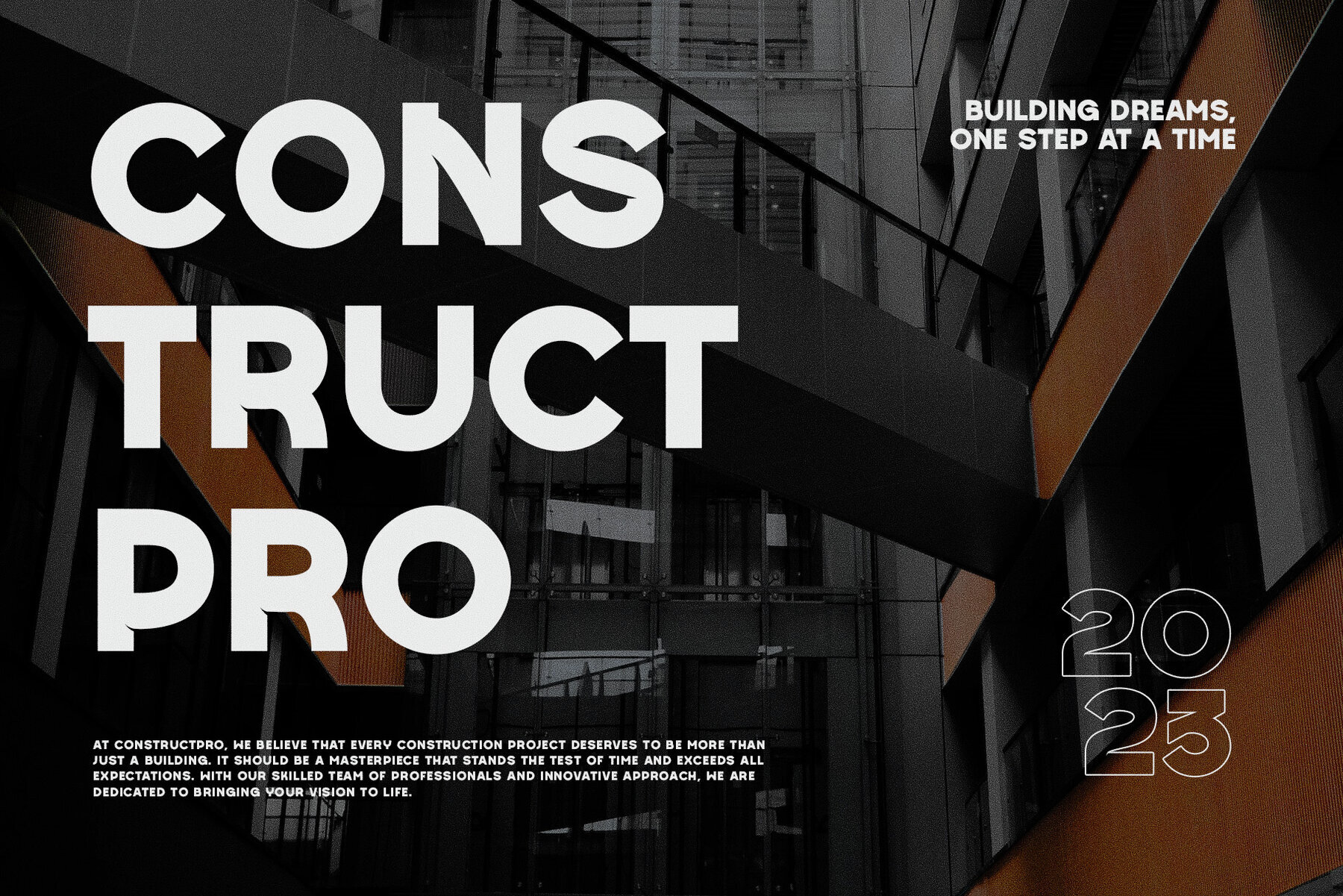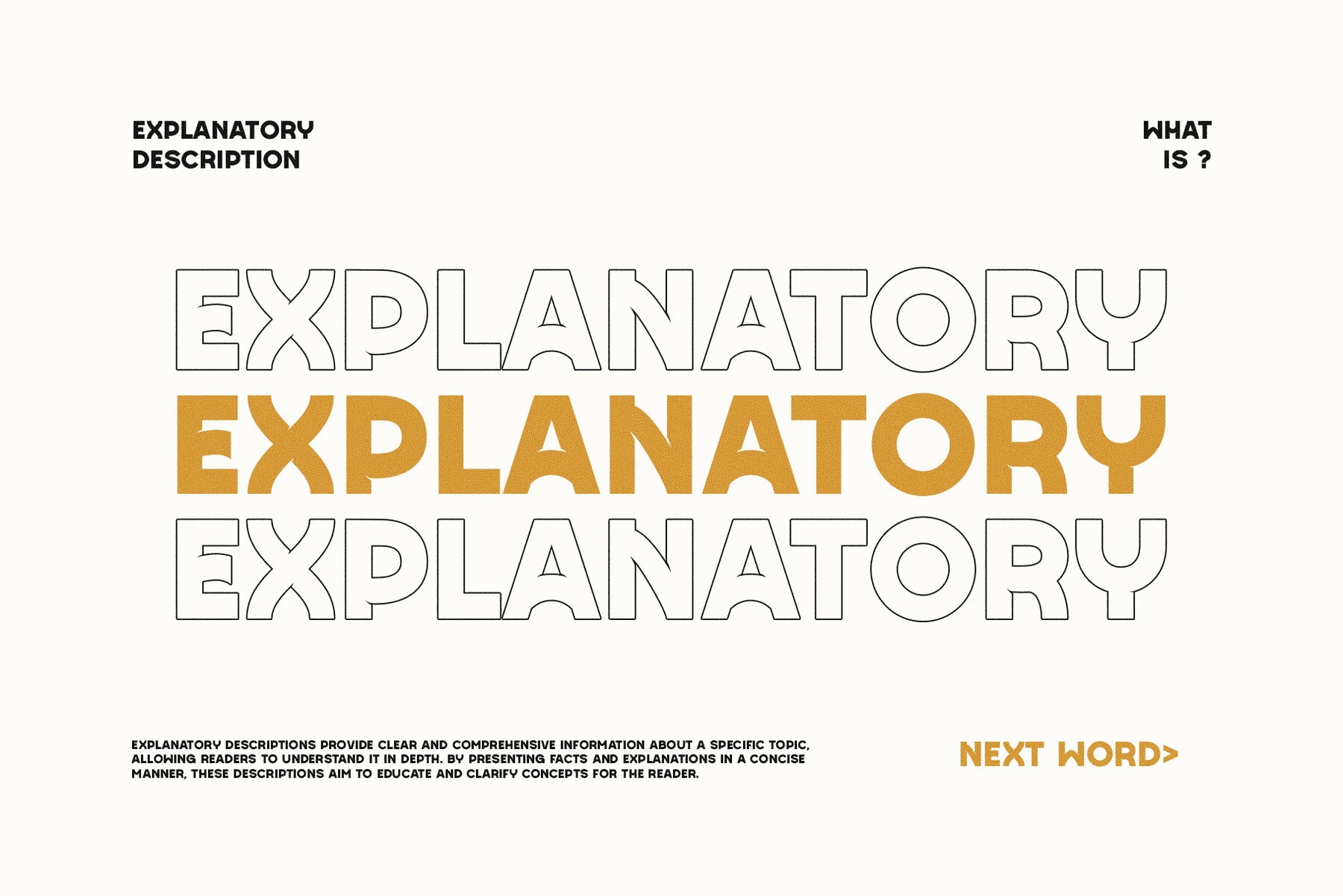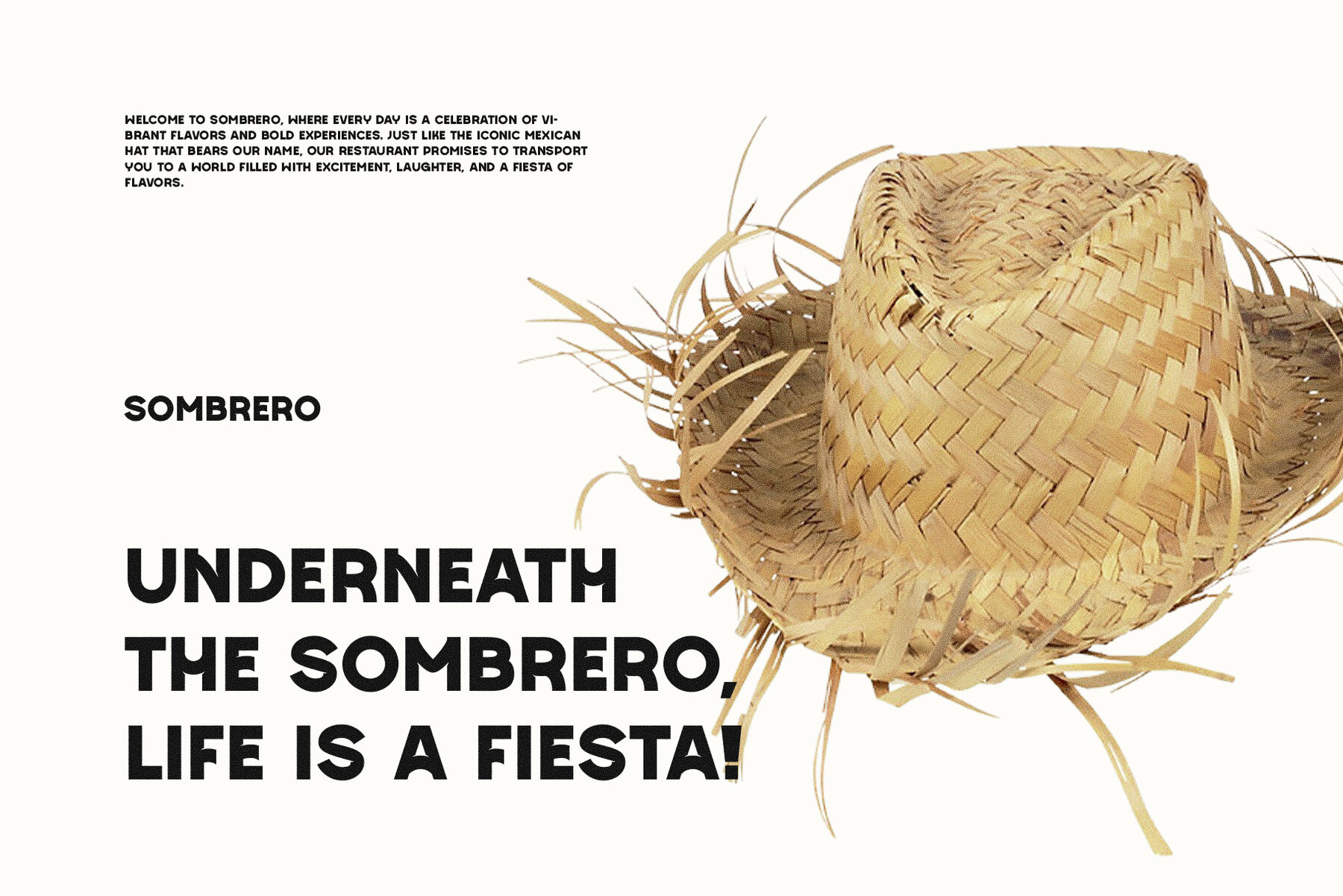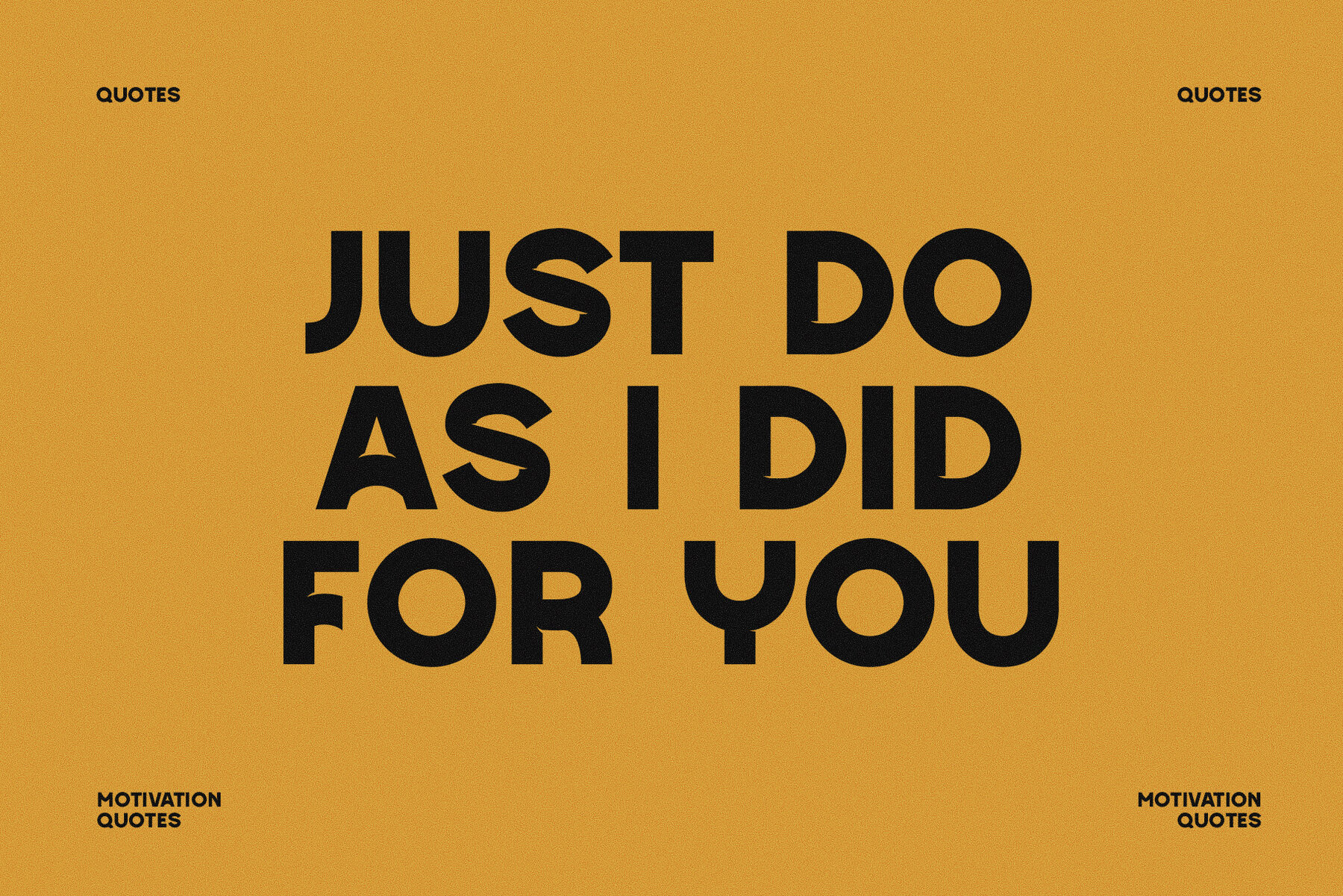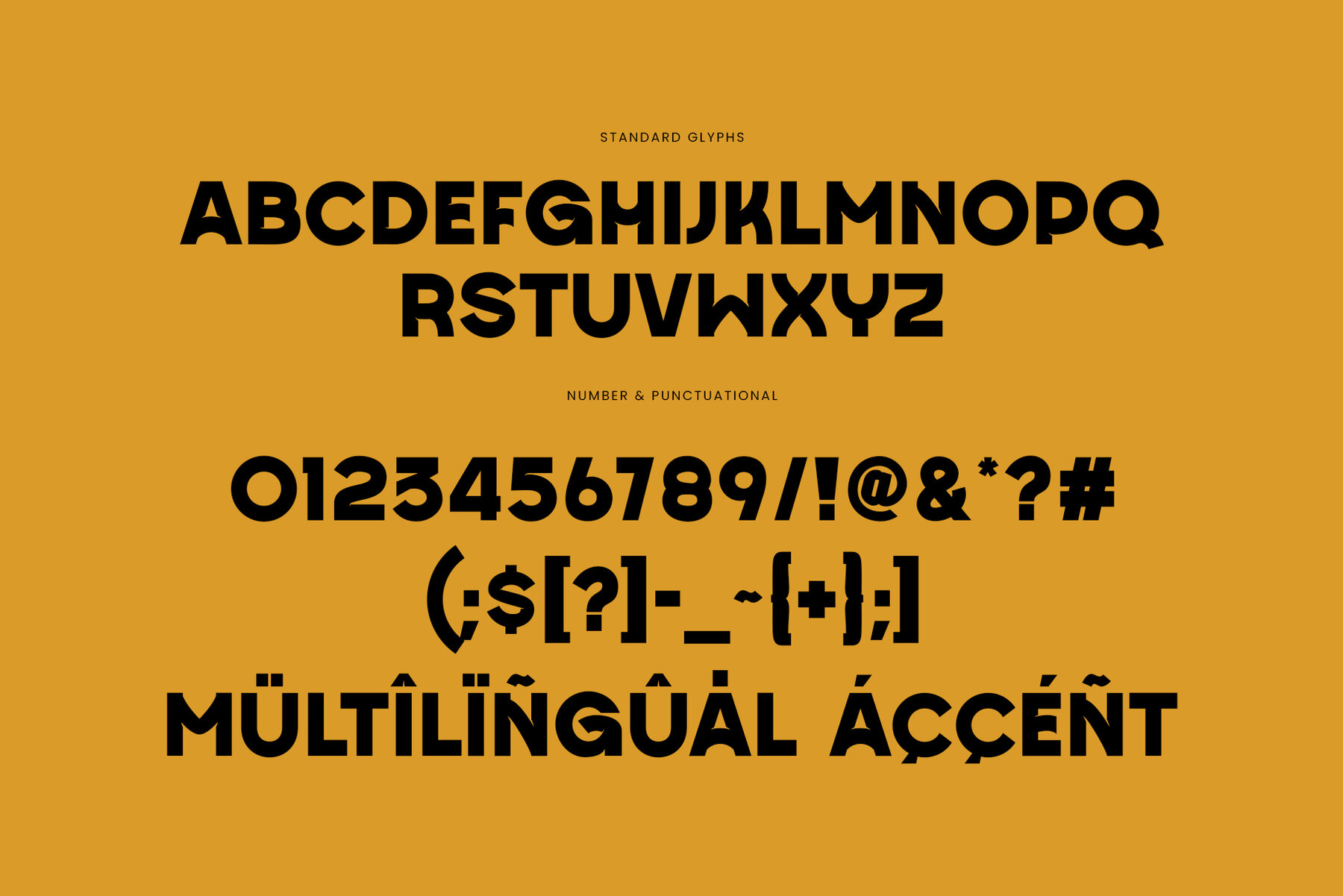
Gohan Font
Gohan Regular
Gohan is a typeface that captures a harmonious rhythm with its symmetrical and balanced design. By blending varying sources of inspiration, it achieves a refined elegance and minimalism. The precisely adjusted proportions, subtle contours, and contrasts create an attractive look, making it versatile for a variety of graphic design applications. Whether you're working on brochures, videos, branding, logos, magazines, layout designs, posters, templates, or games, Gohan offers a dependable and stylish font solution.
This typeface includes character standards, numerals and punctuation, and accented characters for West Europe, ensuring comprehensive language support. Compatible with both PC and Mac, Gohan is recommended for use in Adobe Illustrator or Adobe Photoshop for optimal performance.